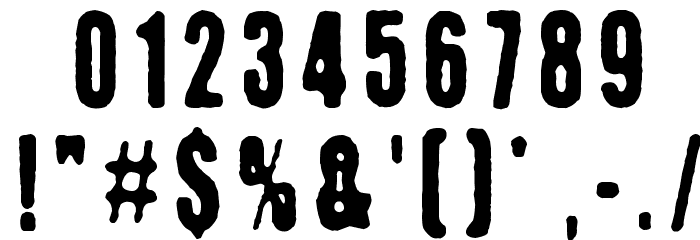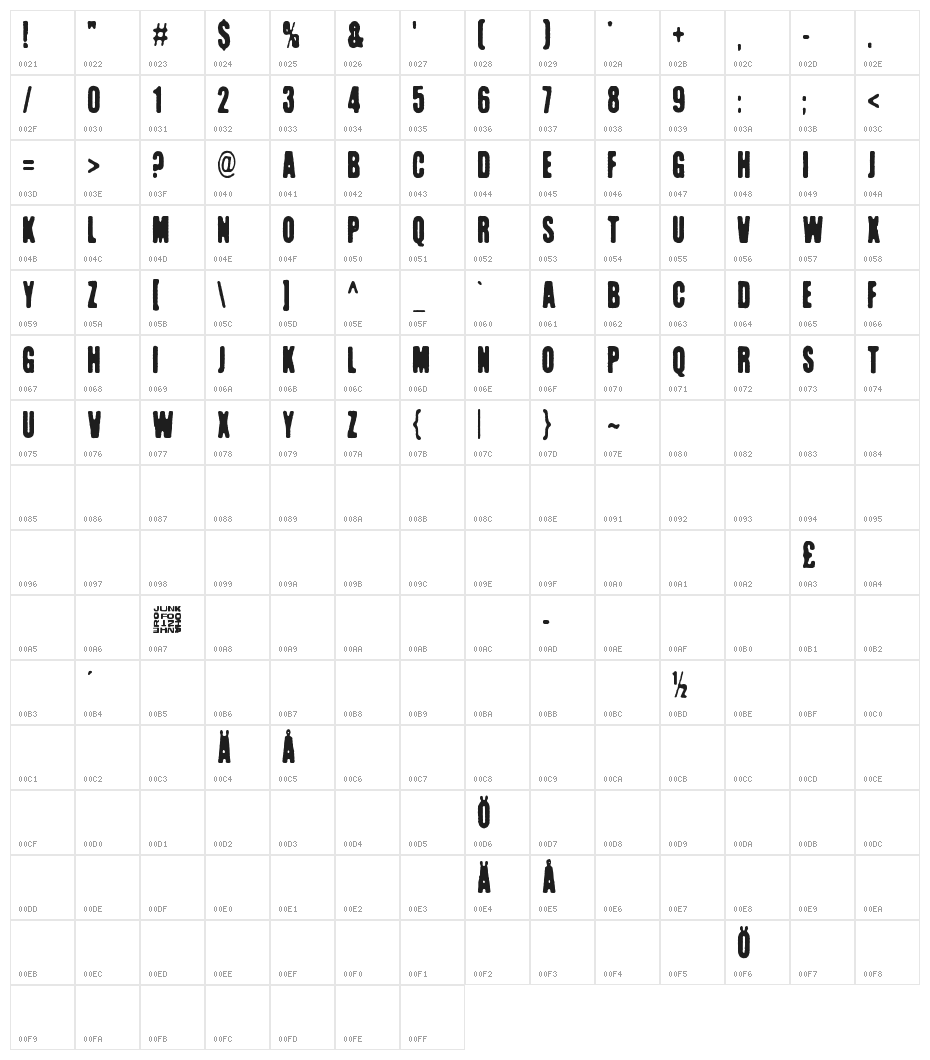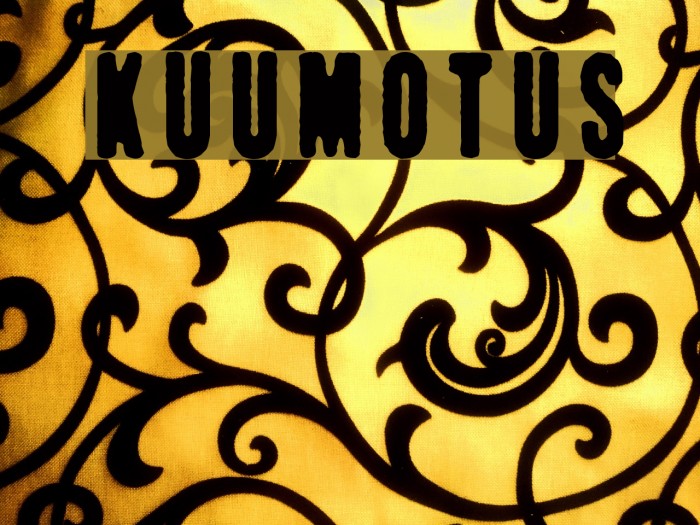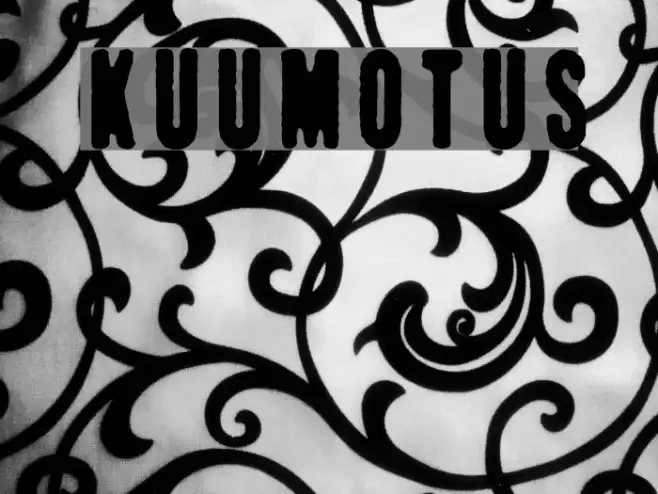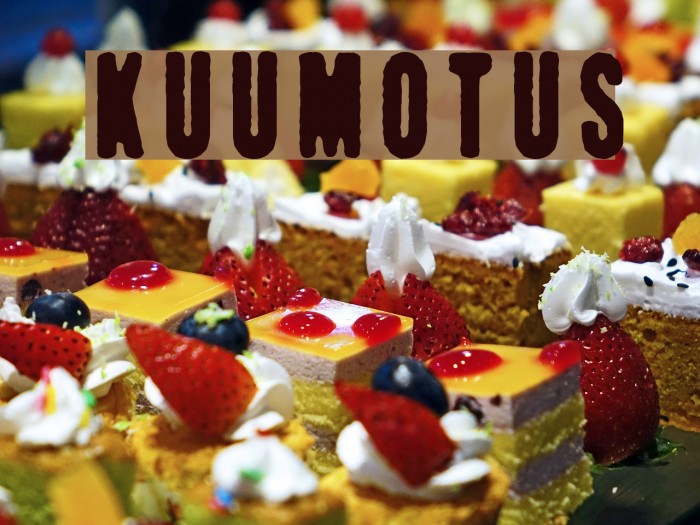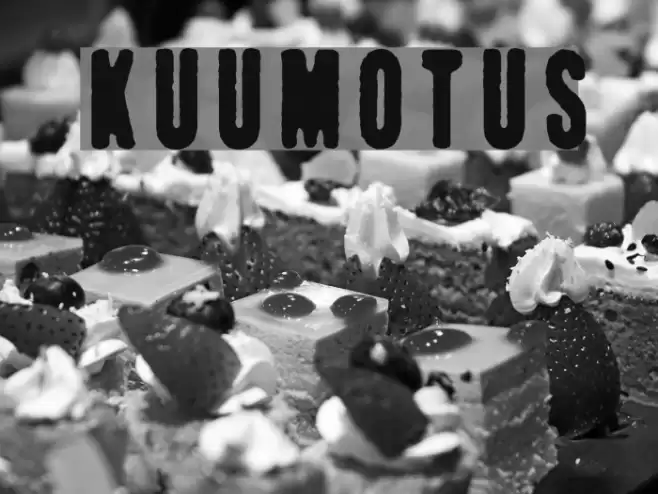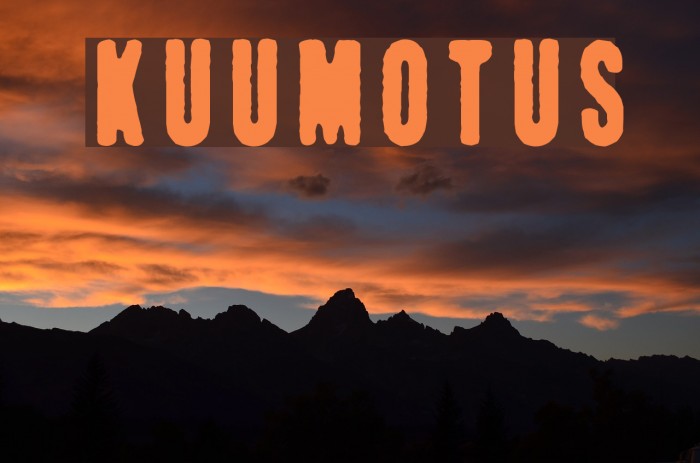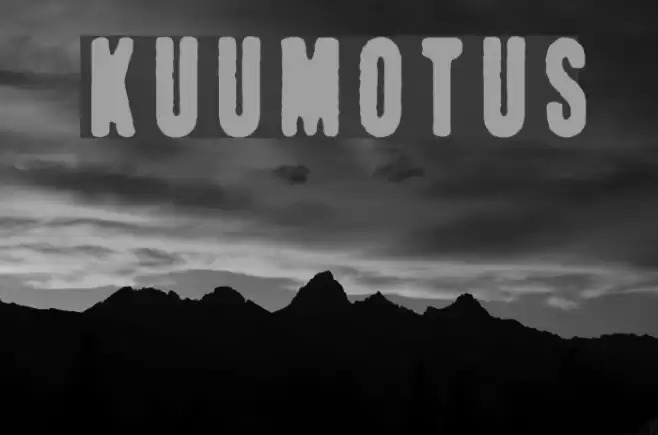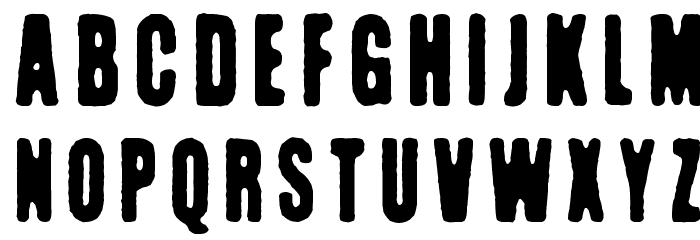
Kuumotus Font
Kuumotus Description
This font features a bold and rugged style with a distressed appearance, giving it a vintage and worn look. The characters are thick and blocky, with uneven edges that add to its rustic charm. The uppercase and lowercase letters maintain a consistent weight, while the numbers and special characters follow the same bold and textured design. This font's unique style makes it stand out, perfect for projects that require a strong, impactful visual presence.
| Proposed Projects | Ideal for posters, logos, branding, and any design requiring a bold, vintage aesthetic. |